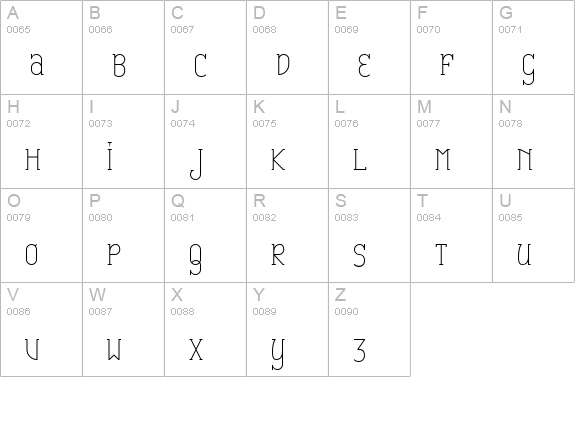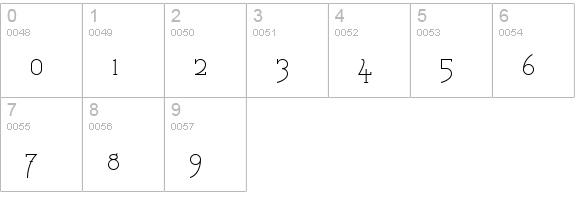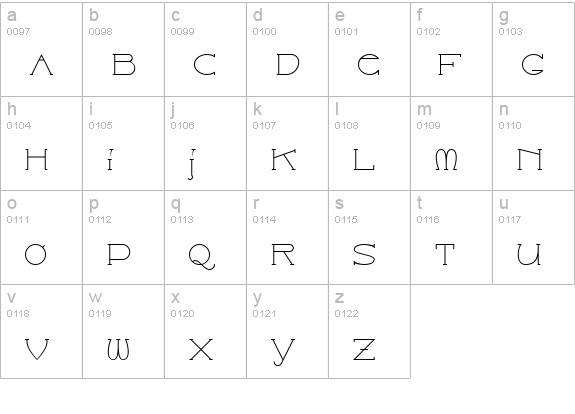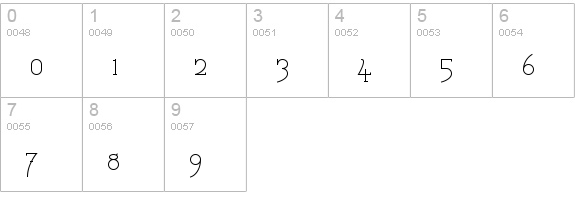
Catharsis Espresso Font Details
Introducing Catharsis Espresso, a captivating and dynamic font that is sure to leave a lasting impression. This free font combines the perfect balance of elegance and boldness, making it ideal for a wide range of design projects. Catharsis Espresso exudes a sense of energy and excitement, with each letter carefully crafted to evoke a feeling of movement and intensity. Its sleek and modern design elements are expertly blended with a touch of playfulness, resulting in a font that is both visually stunning and highly versatile. Whether you're designing a logo, creating eye-catching headlines, or crafting a captivating poster, Catharsis Espresso is the perfect choice to make your text stand out. Its unique letterforms and intricate details will instantly draw attention and add a touch of sophistication to any project. And the best part? Catharsis Espresso is freely available to download at FontsMarket.com. This means that you can add this exceptional font to your design toolkit without breaking the bank. With just a few clicks, you can enhance your creations and take your designs to the next level with the help of this remarkable typeface. So why wait? Embrace the power of Catharsis Espresso and unleash your creativity. Download this stunning font today and experience the freedom of expressing your ideas with style and flair.